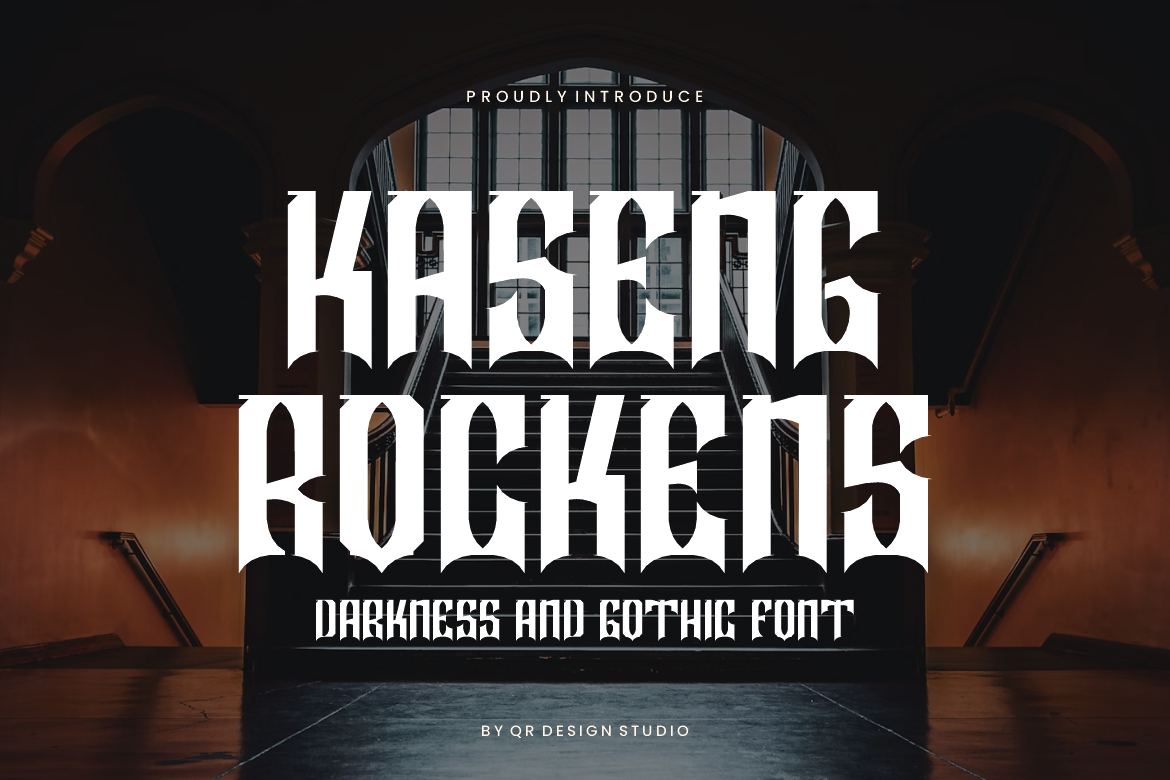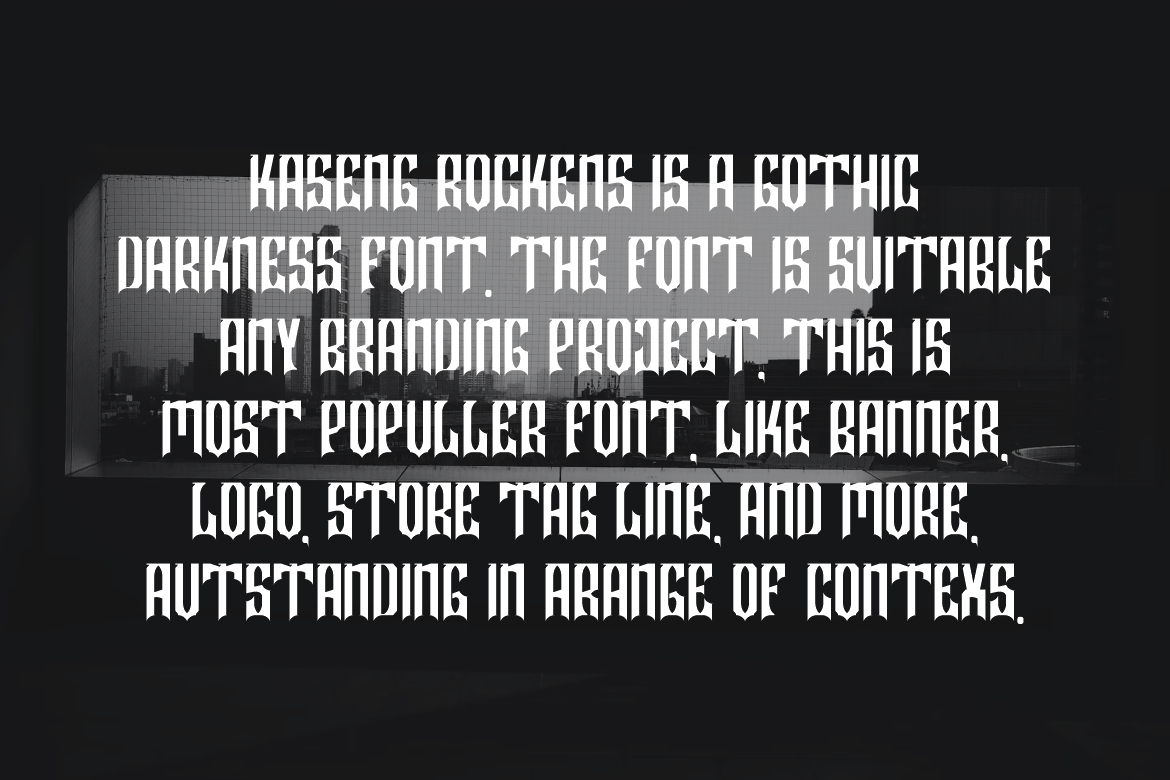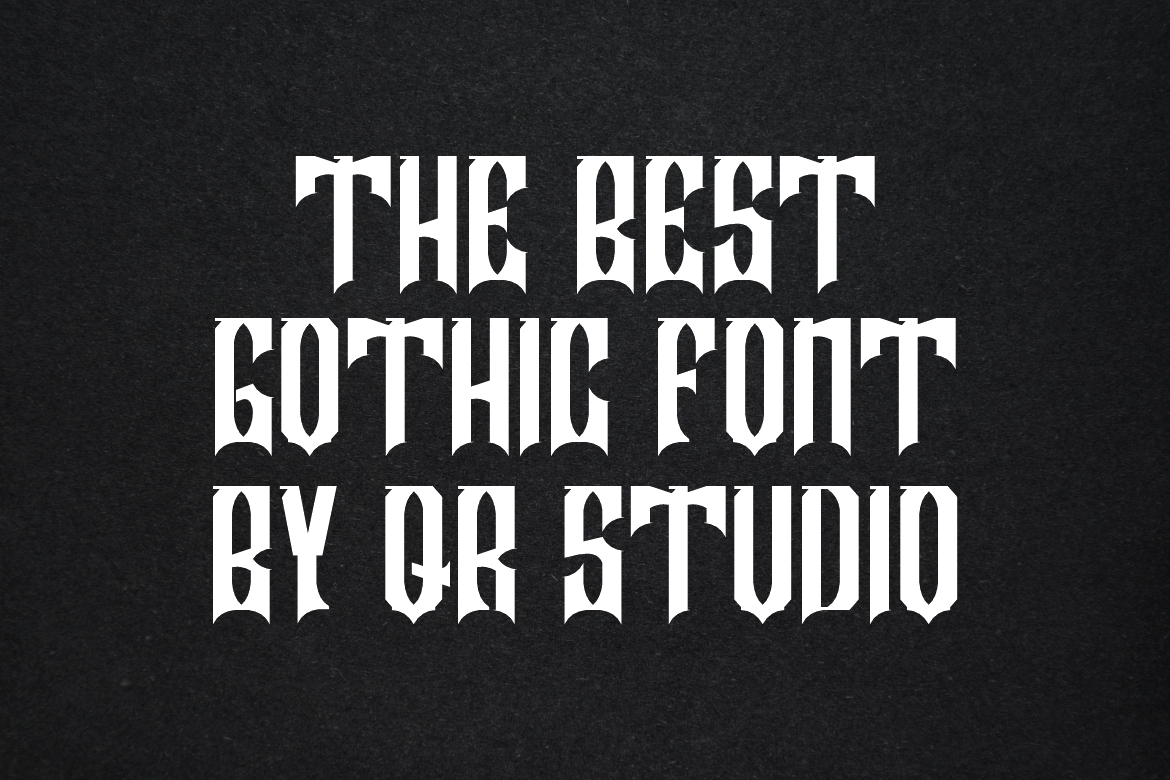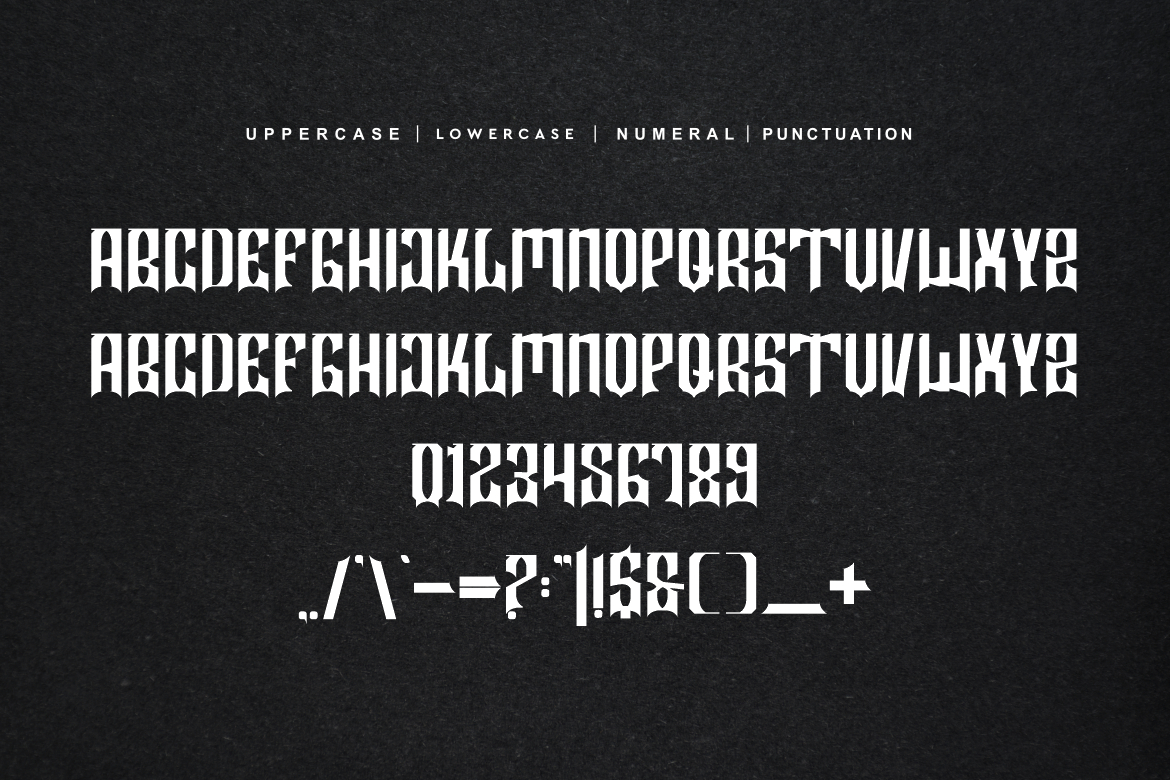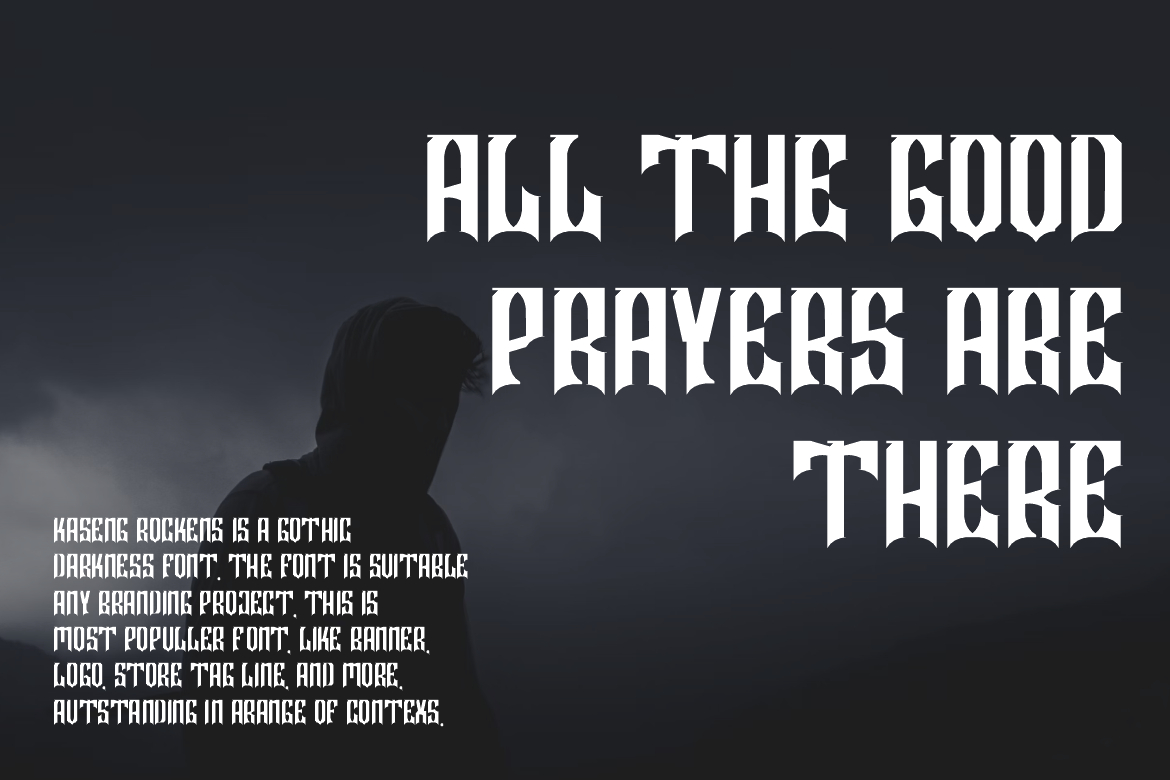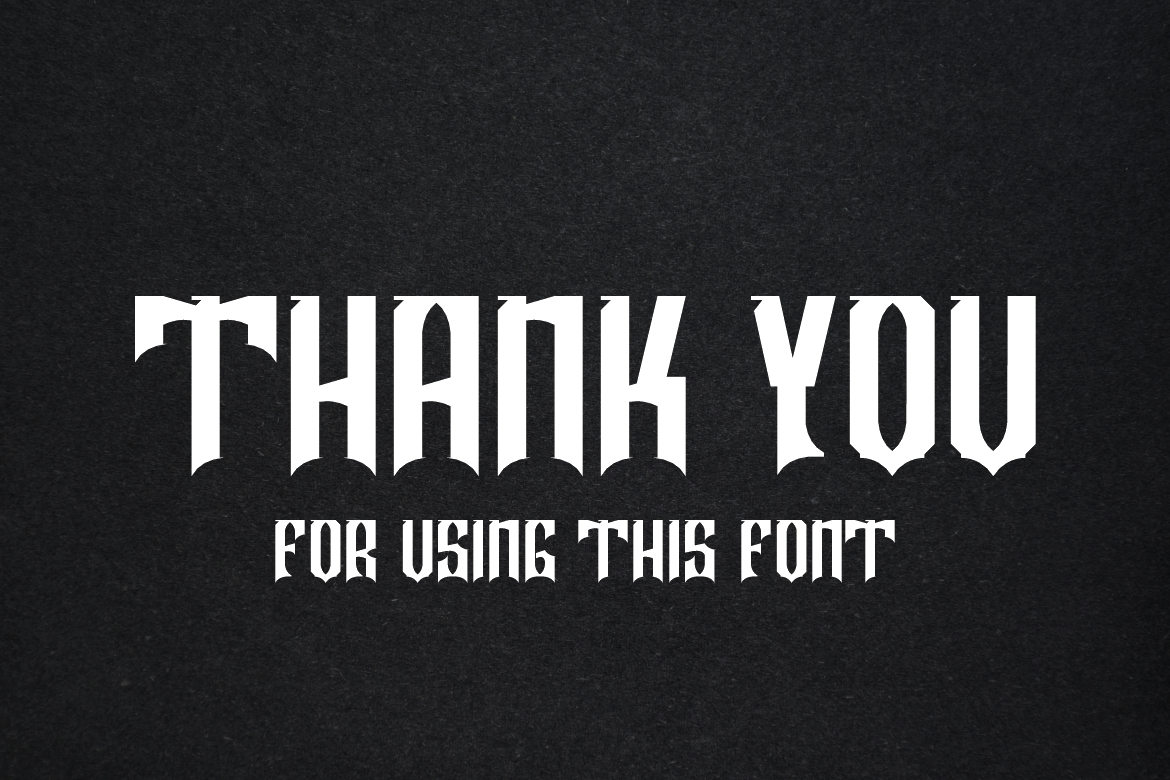
Kaseng Rockens Font
About Kaseng Rockens Font
Kaseng Rockens Font is a bold and authentic display font.
The font is suitable for any branding project like logo, sport, and many more.